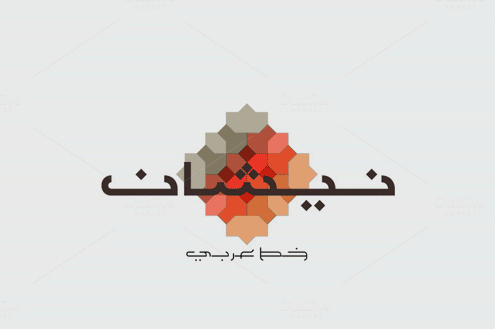
Nishan – Kufic Arabic Font Family 4xOTF
Nishan Kufic Arabic Font Family
Nishan is a unique typeface that brings authenticity of Arabic calligraphy with simplicity of modern Type Design. The Alphabets of Nishan combine the spirit of ancient Kufic inscriptions with the elegance of contemporary Arabic writing. Letter forms are characterized by a sharp difference in their dimensions (length and width). The wide spacing relatively slows down – to some extent – the readability, making Nishan more suitable for decoration and creative titling, as well as advertising and tagging. The typeface consists of four different weights, namely: Light, Regular, Elegance and Bold.